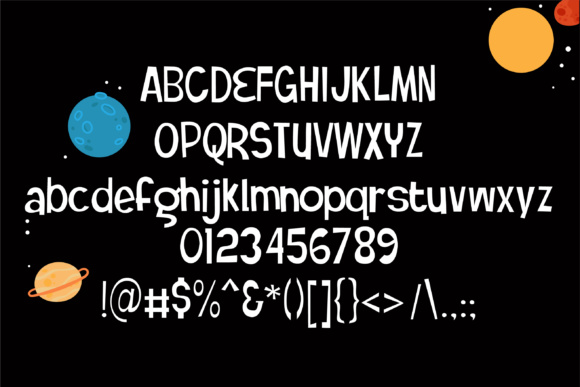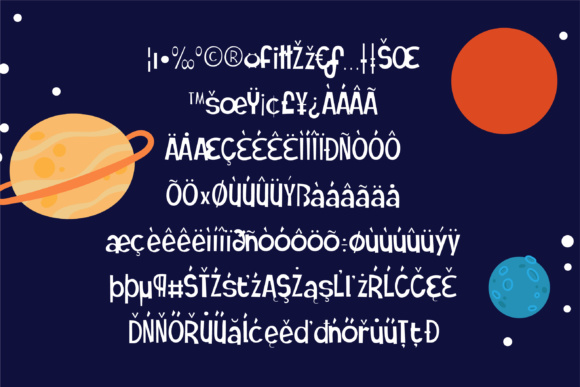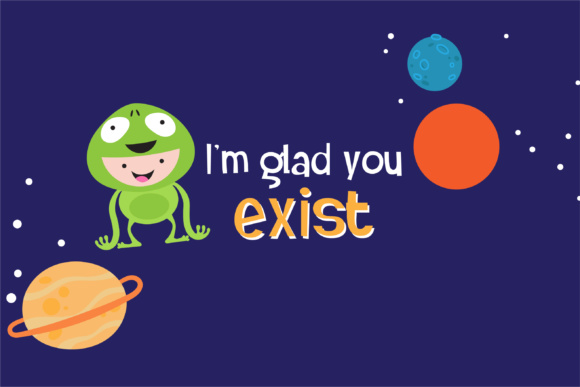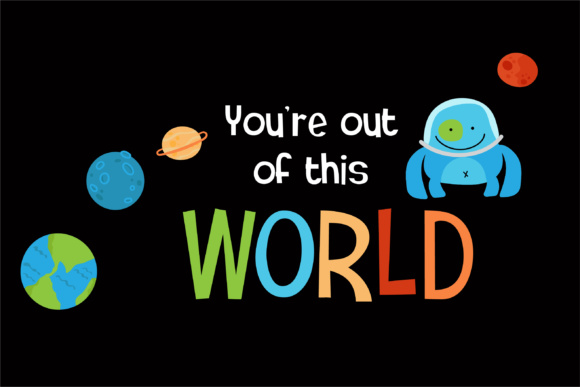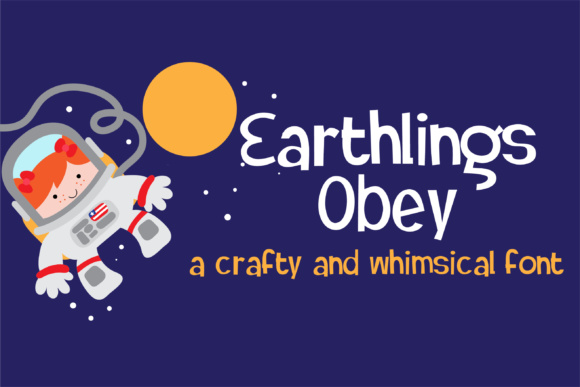
Earthlings Obey Font: A Whimsical Typeface for Crafty Designs
This cute and whimsical font has a crafty feel to it, making it perfect for designers and crafters looking to add a personal touch to their projects. Earthlings Obey Font is a unique typeface that exudes a sense of playfulness and creativity, making it an excellent choice for a wide range of design applications.
What is Earthlings Obey Font?
Earthlings Obey Font is a digital typeface designed to resemble handwritten letters with a quirky, crafty feel. The font features irregular shapes, varying line widths, and a dash of whimsy, giving it a distinctly homemade look. This makes it ideal for designs that require a personal, human touch, such as craft tutorials, DIY blogs, and handmade product labels.
Key Features of Earthlings Obey Font
- Whimsical design: Earthlings Obey Font boasts a playful, irregular design that adds a touch of personality to any project.
- Crafty feel: The font’s handmade look and feel make it perfect for crafty designs, such as knitting patterns, sewing tutorials, and woodworking projects.
- Highly legible: Despite its irregular design, Earthlings Obey Font is highly legible, making it suitable for body text and headings.
- Multilingual support: The font supports multiple languages, including English, Spanish, French, and German.
Uses for Earthlings Obey Font
Earthlings Obey Font is a versatile typeface that can be used in a wide range of design applications, including:
- Craft tutorials: Add a personal touch to your craft tutorials, patterns, and instructions with Earthlings Obey Font.
- DIY blogs: Use the font to create eye-catching headings and titles for your DIY blog or website.
- Handmade product labels: Add a touch of whimsy to your handmade product labels, making them stand out at craft fairs and markets.
- Social media graphics: Use Earthlings Obey Font to create engaging social media graphics, such as quote graphics, motivational posters, and event announcements.
Tips for Using Earthlings Obey Font
To get the most out of Earthlings Obey Font, follow these tips:
- Use it sparingly: Earthlings Obey Font is best used sparingly, as a headline or title font, to add visual interest to your design.
- Pair it with a sans-serif font: Pair Earthlings Obey Font with a clean, sans-serif font, such as Arial or Helvetica, to create visual contrast and hierarchy.
- Experiment with colors: Earthlings Obey Font looks great in a range of colors, from bright and bold to muted and pastel.
Earthlings Obey Font is a unique and versatile typeface that adds a touch of whimsy and personality to any design project. With its crafty feel, highly legible design, and multilingual support, it’s perfect for designers and crafters looking to create engaging, handmade-inspired designs. Whether you’re creating craft tutorials, DIY blog posts, or handmade product labels, Earthlings Obey Font is sure to become a favorite in your design toolkit.